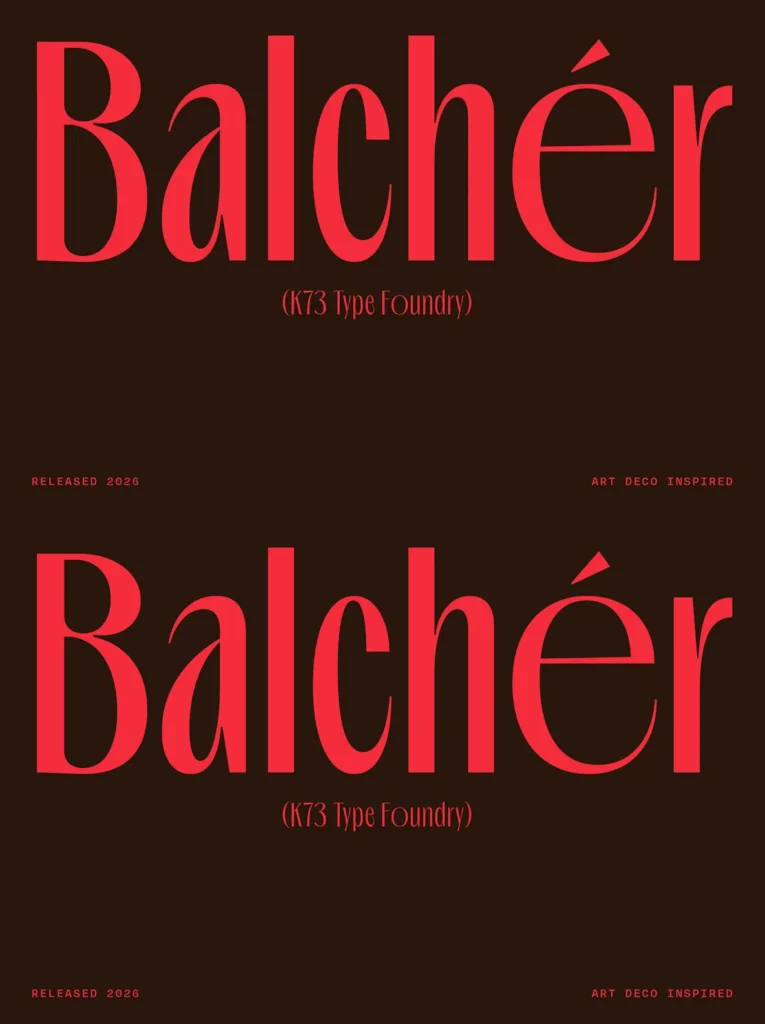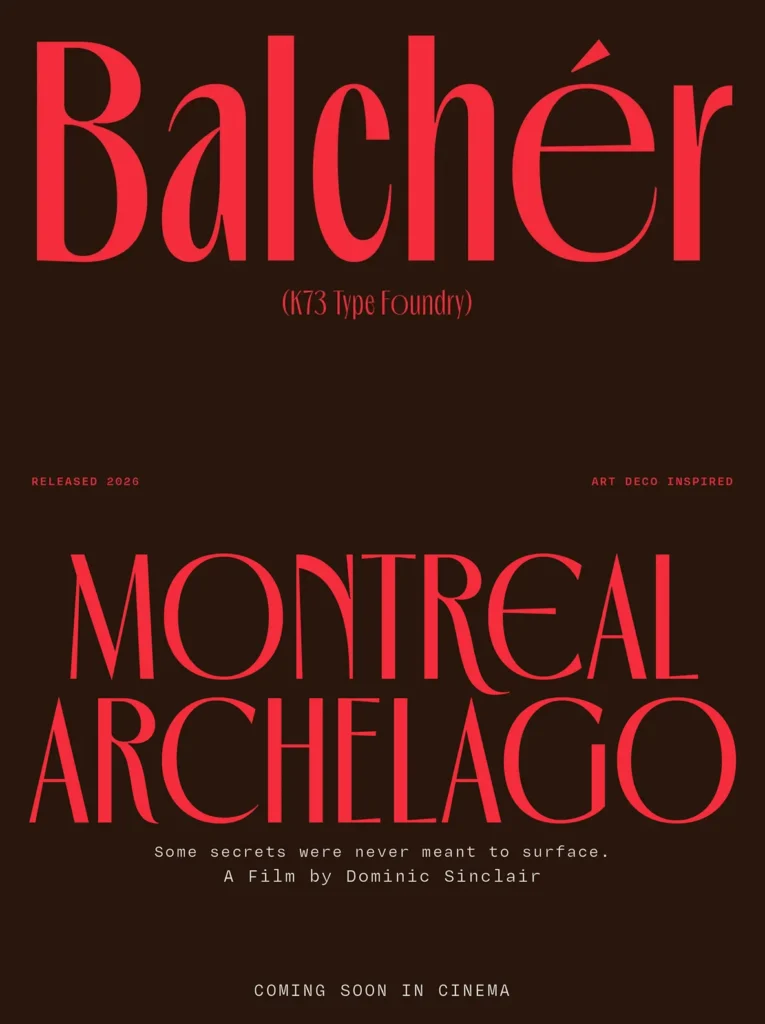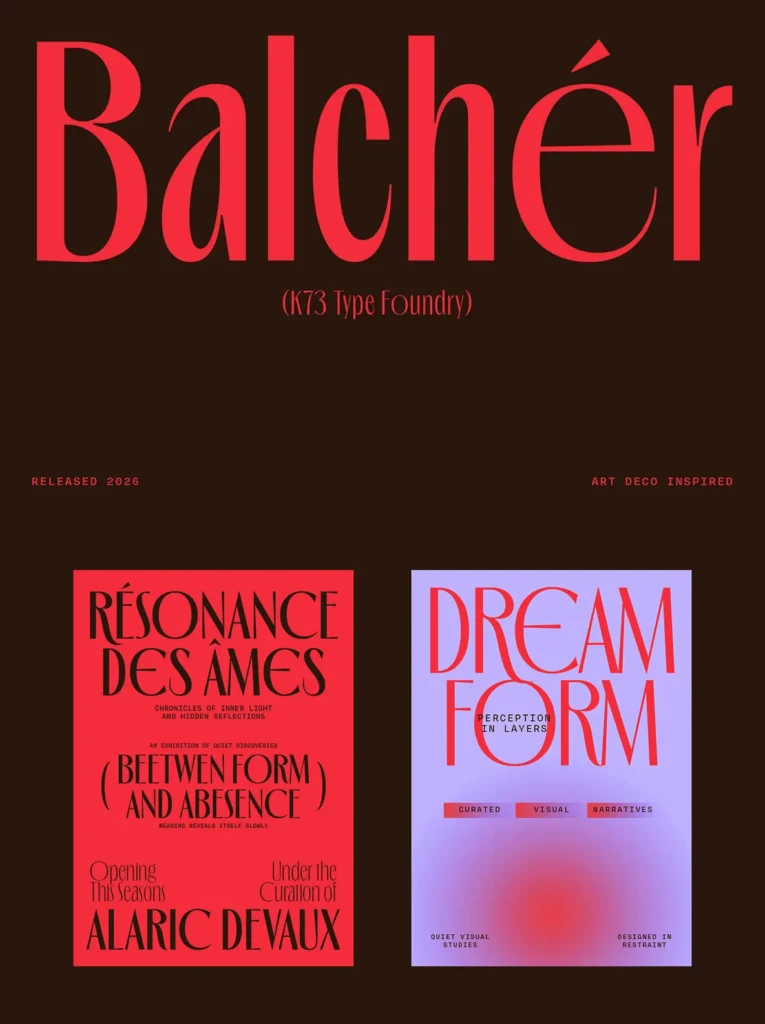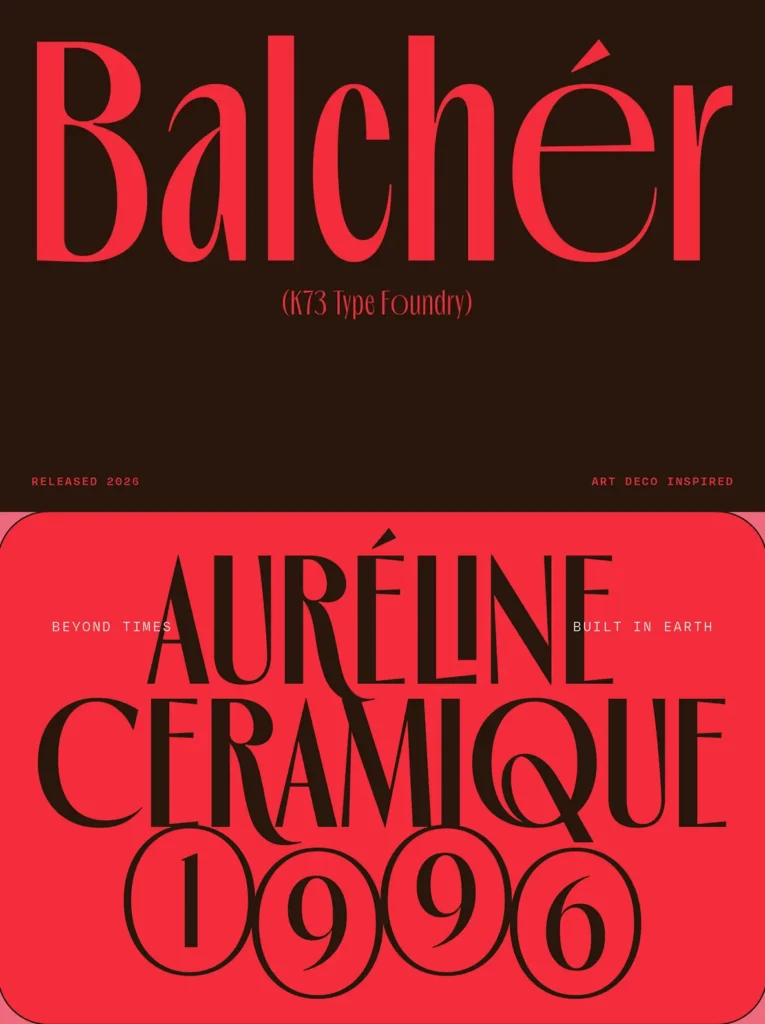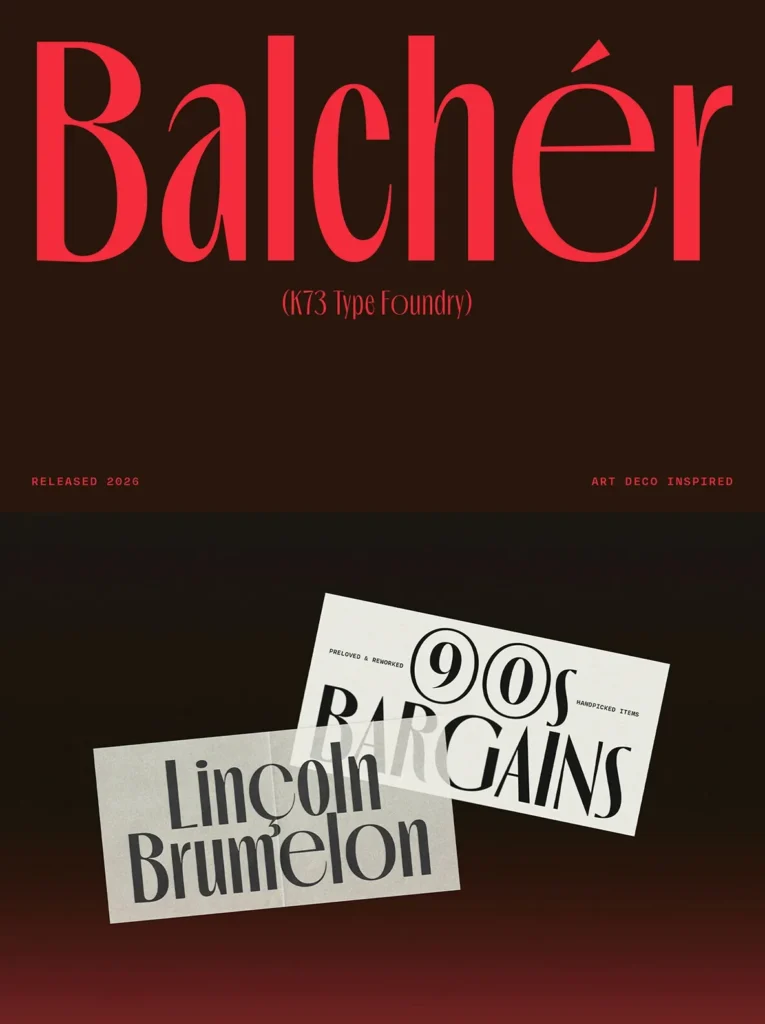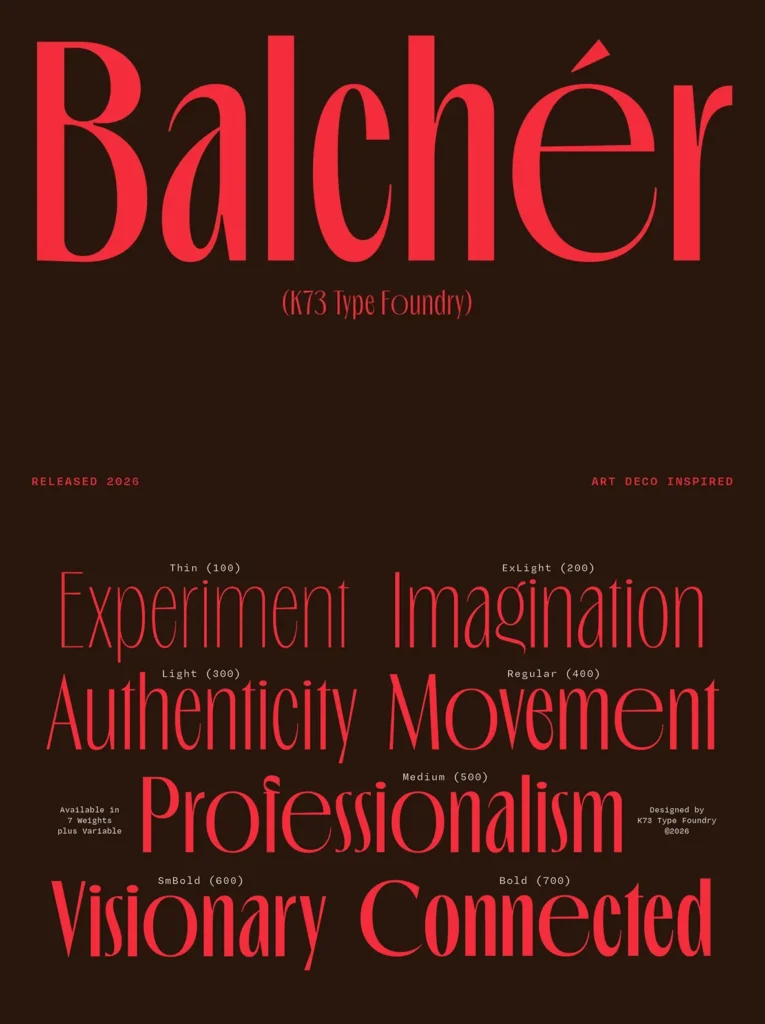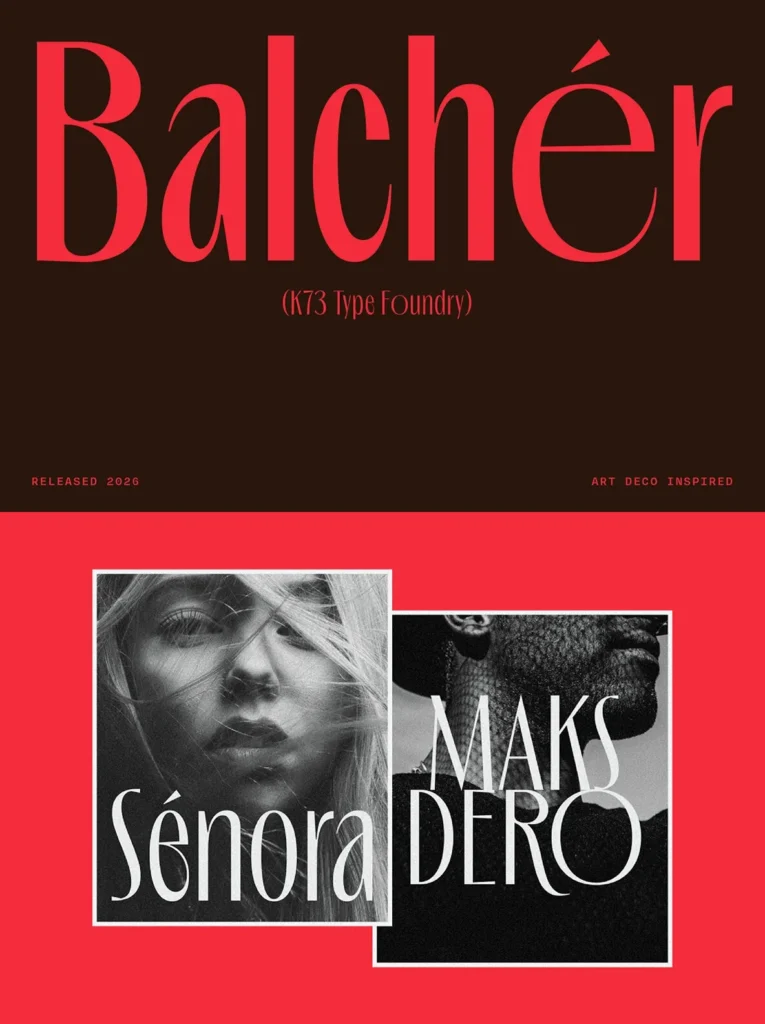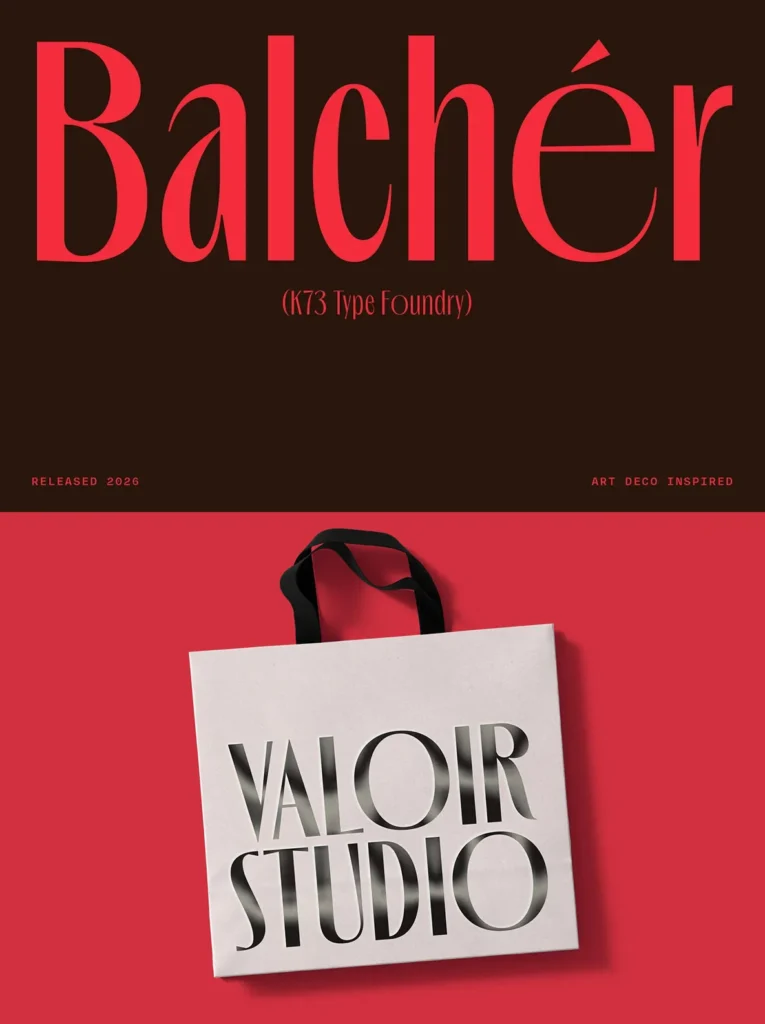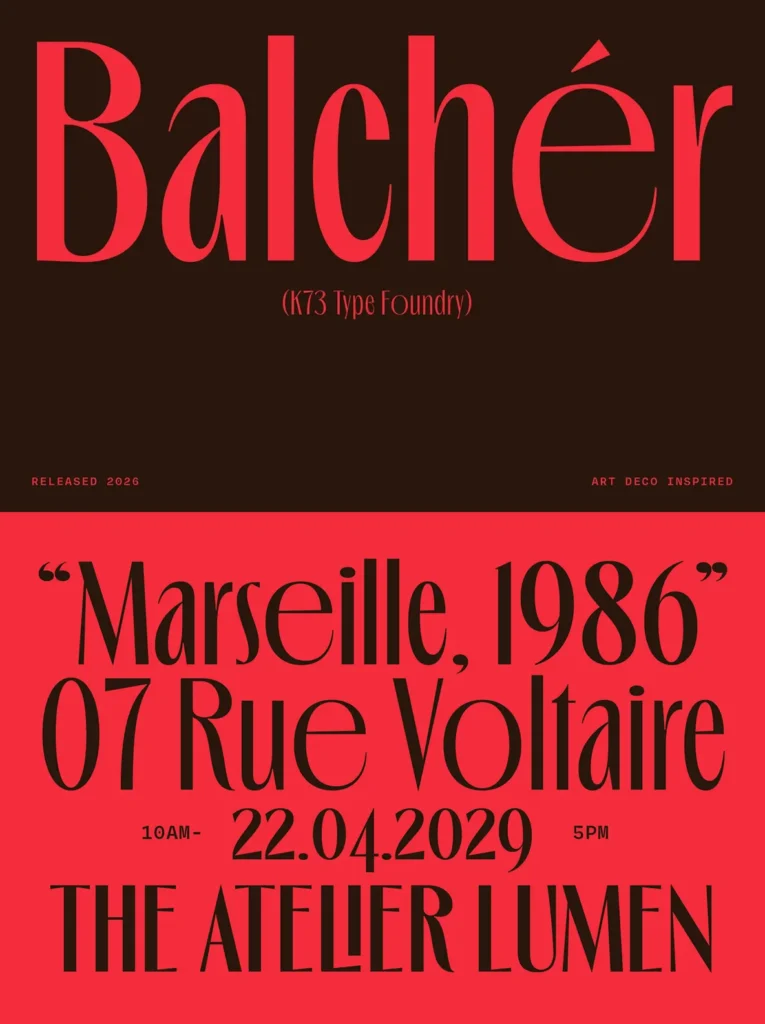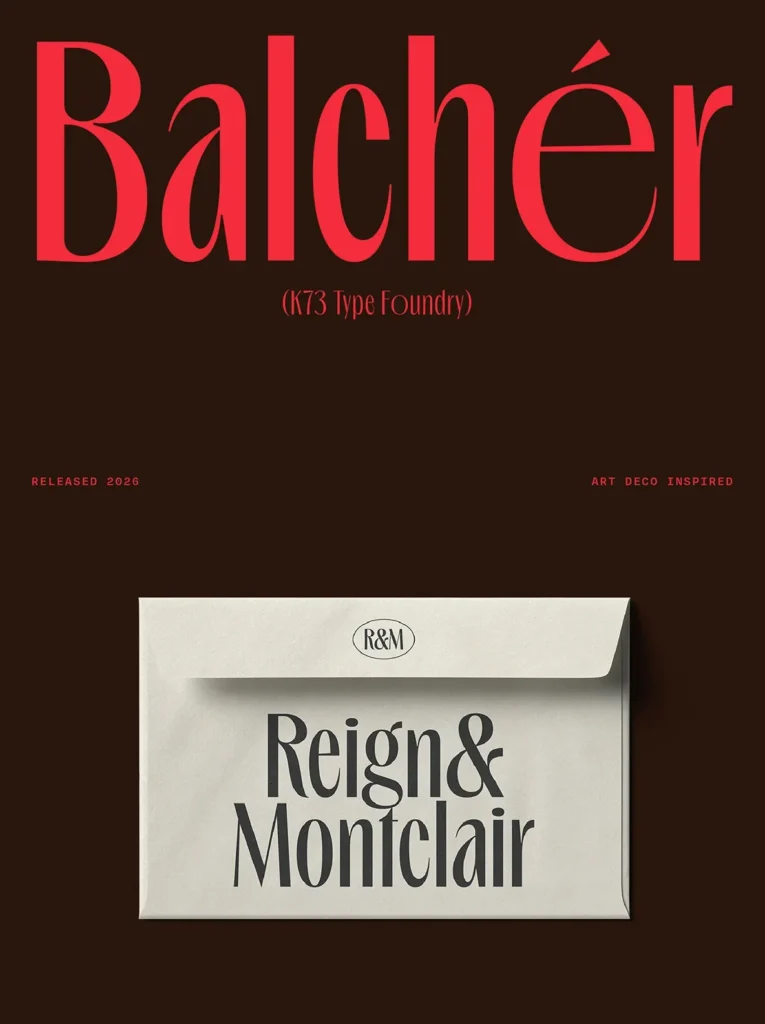
K73 Balcher Font
K73 Balcher
is a high-contrast sans serif typeface inspired by the elegance and geometry of the Art Deco era. Designed primarily for display use, it is available in 7 weights from Thin to Bold, including a variable version that allows precise control across the weight spectrum. The sharp contrast and sculptural rhythm give it a strong yet refined presence.
Influenced by architectural lettering and luxury signage of the 1920s and 1930s, K73 Balcher translates classic Deco sophistication into a contemporary typographic system. Its open counterforms, controlled proportions, and disciplined construction make it well suited for headlines, editorial titles, branding, packaging, and visual identities that require clarity with character.
Each weight has been carefully refined to maintain consistency and balance throughout the family, preserving its decorative foundation while ensuring a clean and relevant performance for modern design contexts.